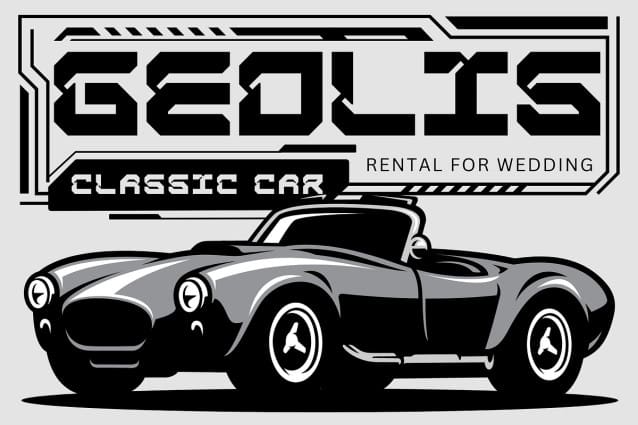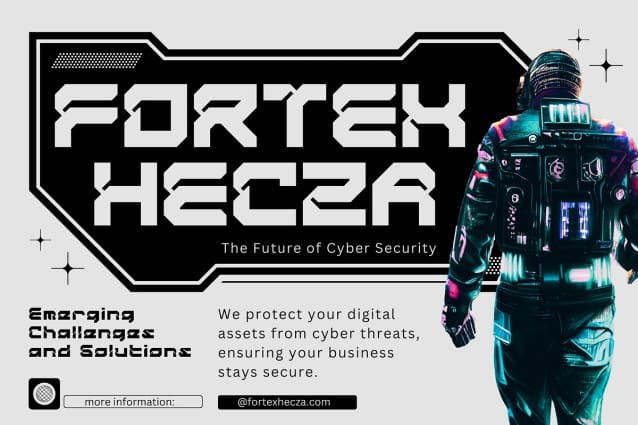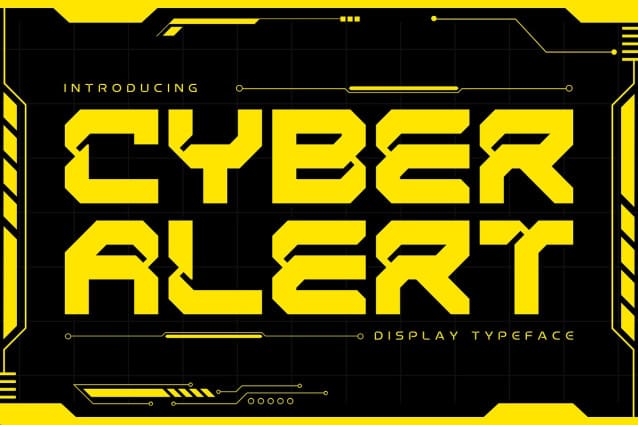
Cyber Alert Font
Cyber Alert Font is a cutting-edge cyber sci-fi futuristic font that embodies the essence of digital worlds and high-tech design. With sharp angles, sleek lines, and a bold presence, this font is perfect for projects that demand a modern, tech-savvy look. Ideal for video game titles, tech logos, movie posters, and digital interfaces, “Cyber Alert” brings a sense of urgency and innovation. Its futuristic aesthetic makes it a go-to choice for creators aiming to evoke a sense of the unknown and the high-tech future.